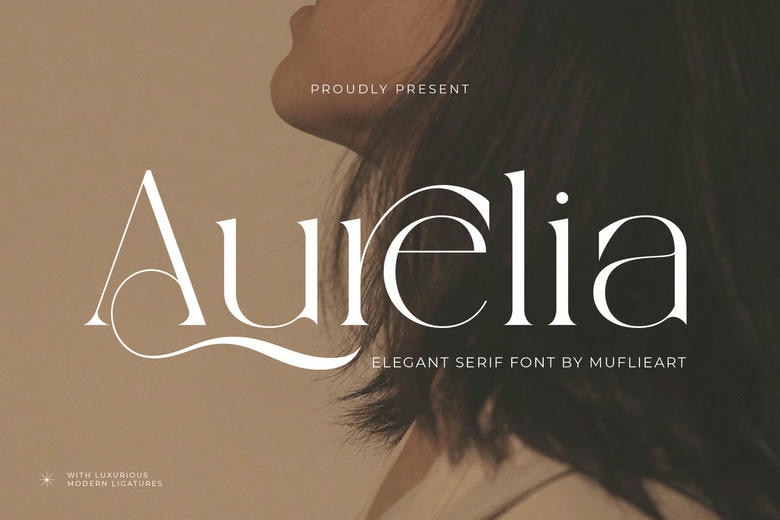
Aurelia Font
Aurelia is a modern serif font with an elegant look. It adds a touch of luxury and simplicity to projects such as websites, logos, brand identities, social media quotes, wedding stationery, magazines, and more.
Aurelia features unique and stylish capital letters from A to Z, plus special alternates and ligatures. You can easily customize it for a wide range of projects.
Aurelia Serif Font